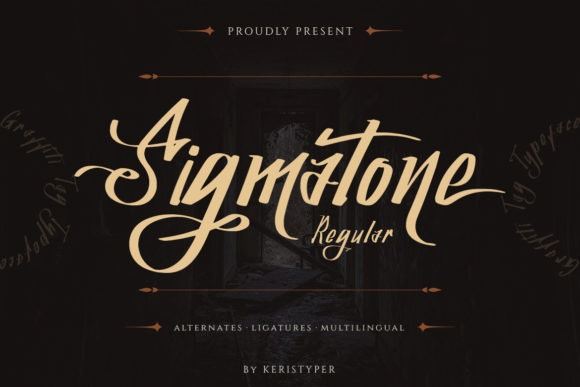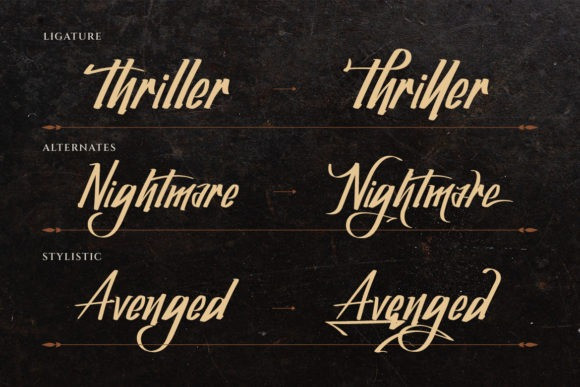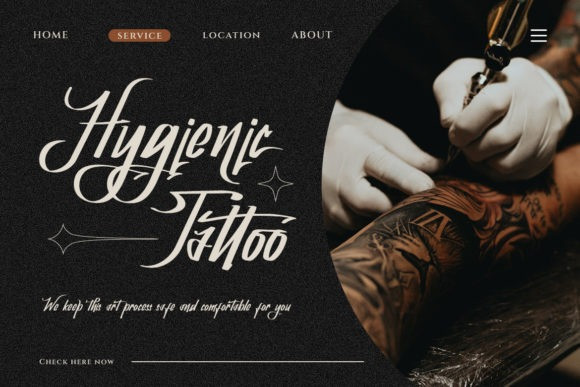
Sigmatone Font
Sigmatone is inspired by old skool graffiti tagging and street art. Is created in Procreate app, then vectorized and crafted carefully. This font is good for logo design, Social media, Movie Titles, Books Titles, short text even long text letters, and good for your secondary text font with sans or serif.